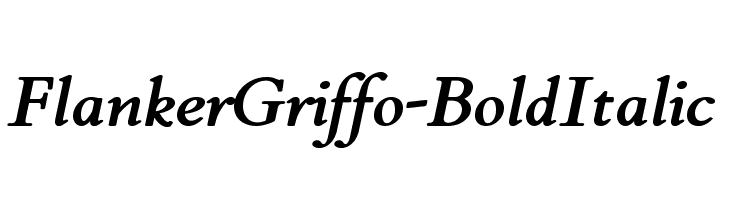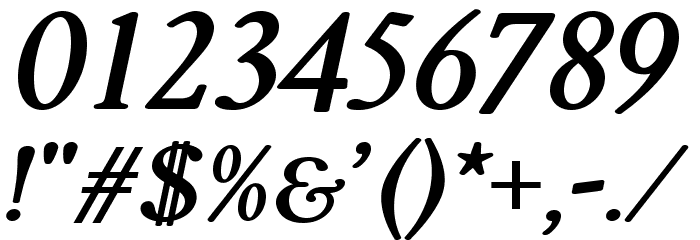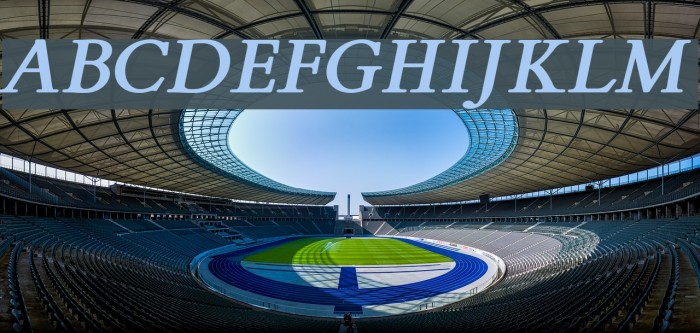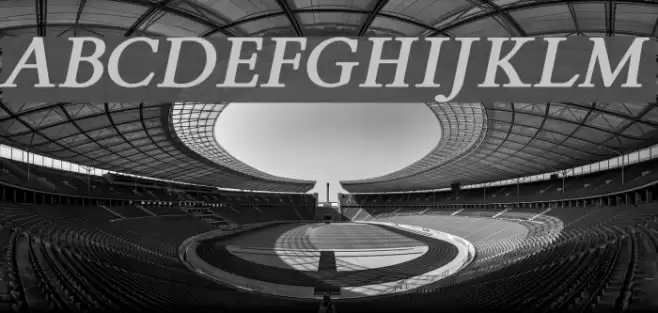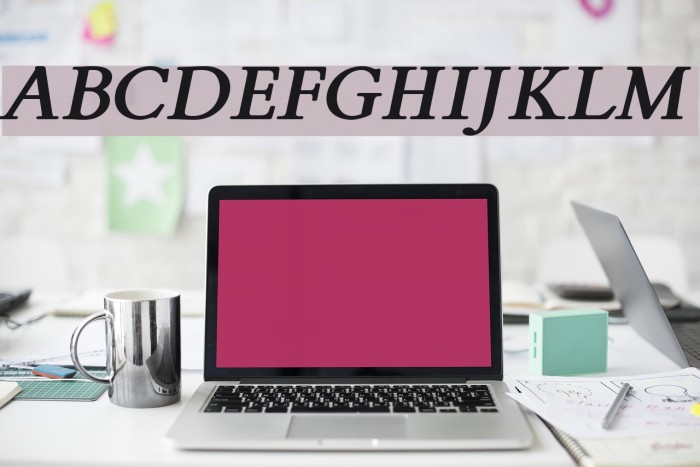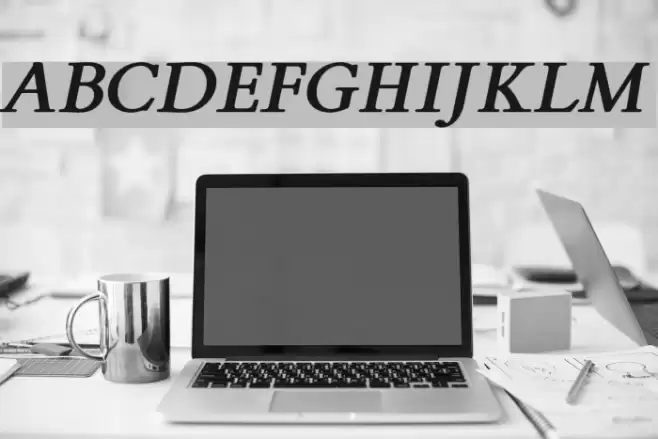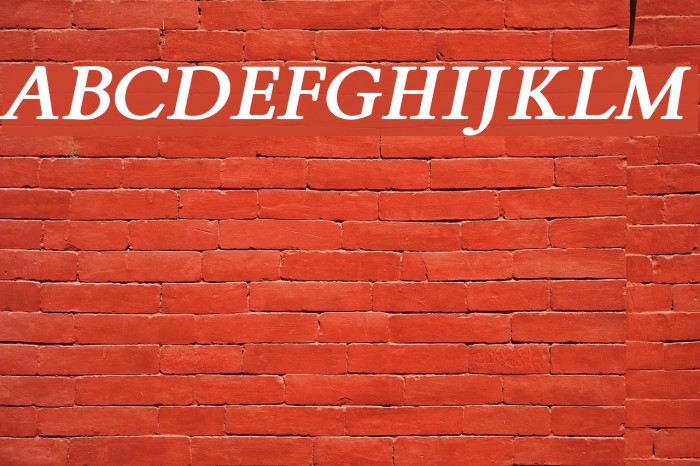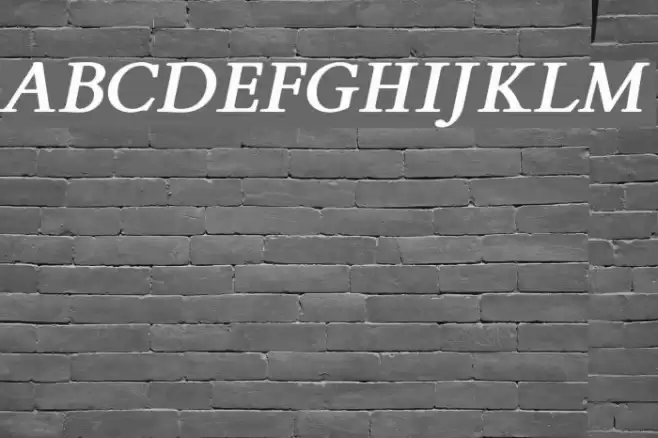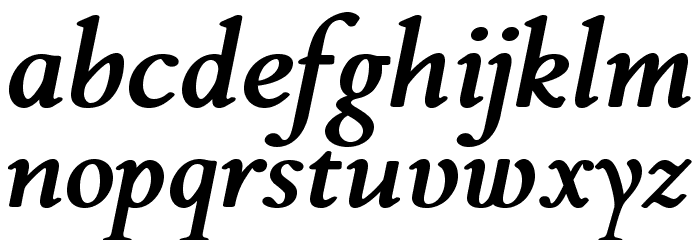
FlankerGriffo-BoldItalic Font
This font exhibits a classic and elegant style with a bold and italicized appearance. The characters are well-defined with a slight slant, giving it a dynamic and sophisticated look. The serifs are pronounced, adding a touch of formality and tradition. The uppercase letters are tall and commanding, while the lowercase letters maintain a consistent flow, enhancing readability. The numerals are clear and distinct, matching the overall aesthetic. Special characters are crafted with attention to detail, ensuring they complement the alphabetic characters seamlessly.
A bold, italic serif font with a classic and elegant style.
• Proposed Projects: Ideal for formal invitations, book covers, branding materials, and editorial design.
• Category: Serif
• Contrast: High
• Overall Style: Classic
• Use Case: Headlines, Logos, Editorial design